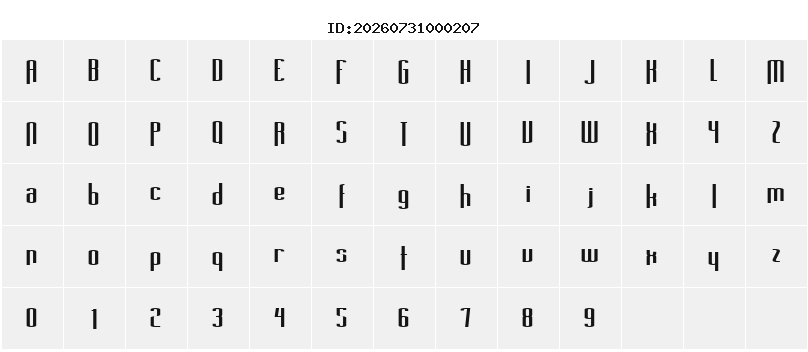
• Font Name: Long Cool Grandma
About Long Cool Grandma.ttf
Long Cool Grandma.ttf is a modern, elegant sans-serif font designed for ultimate readability and visual harmony. Perfect for branding, headlines, web design, and print materials.